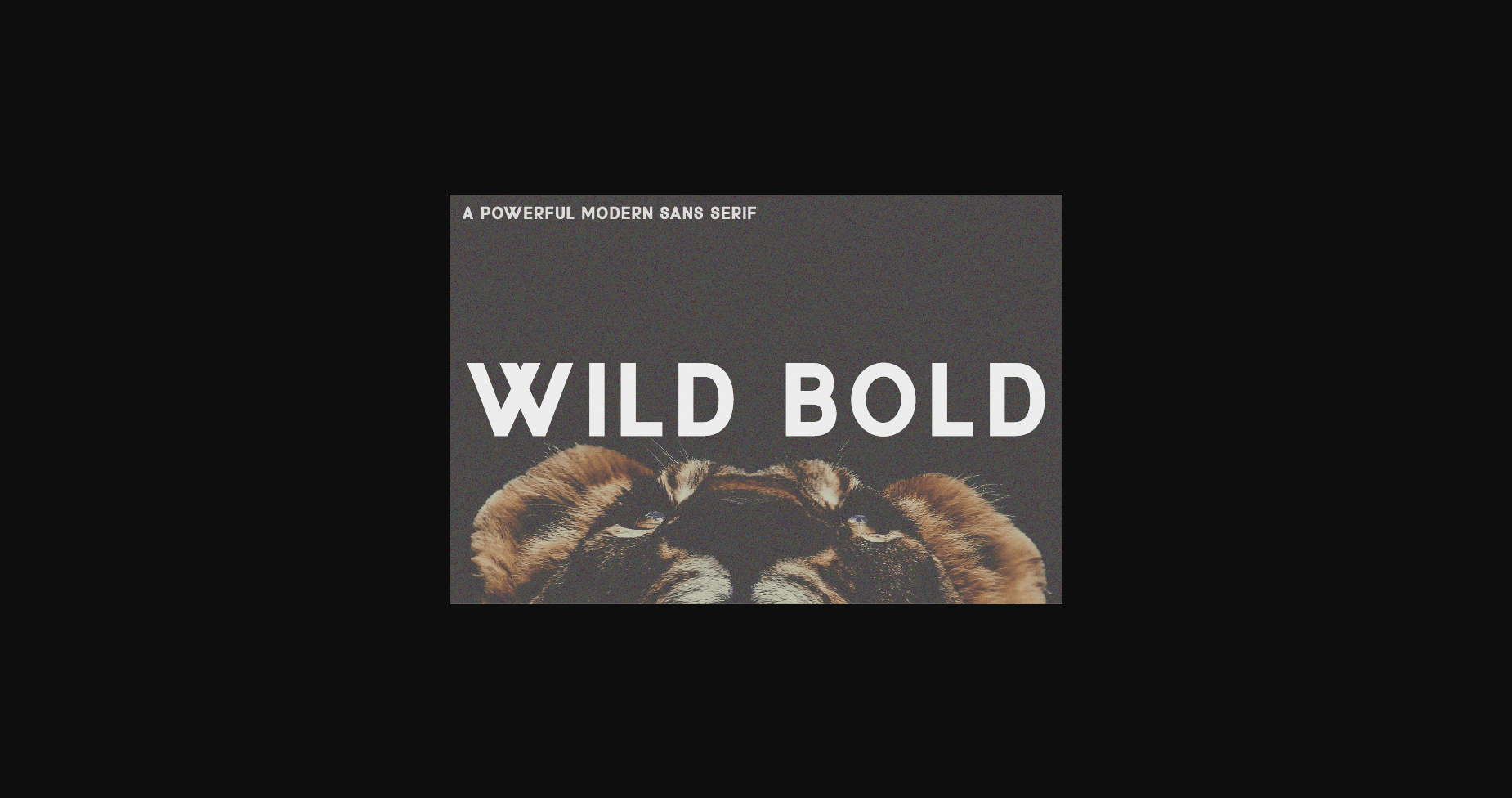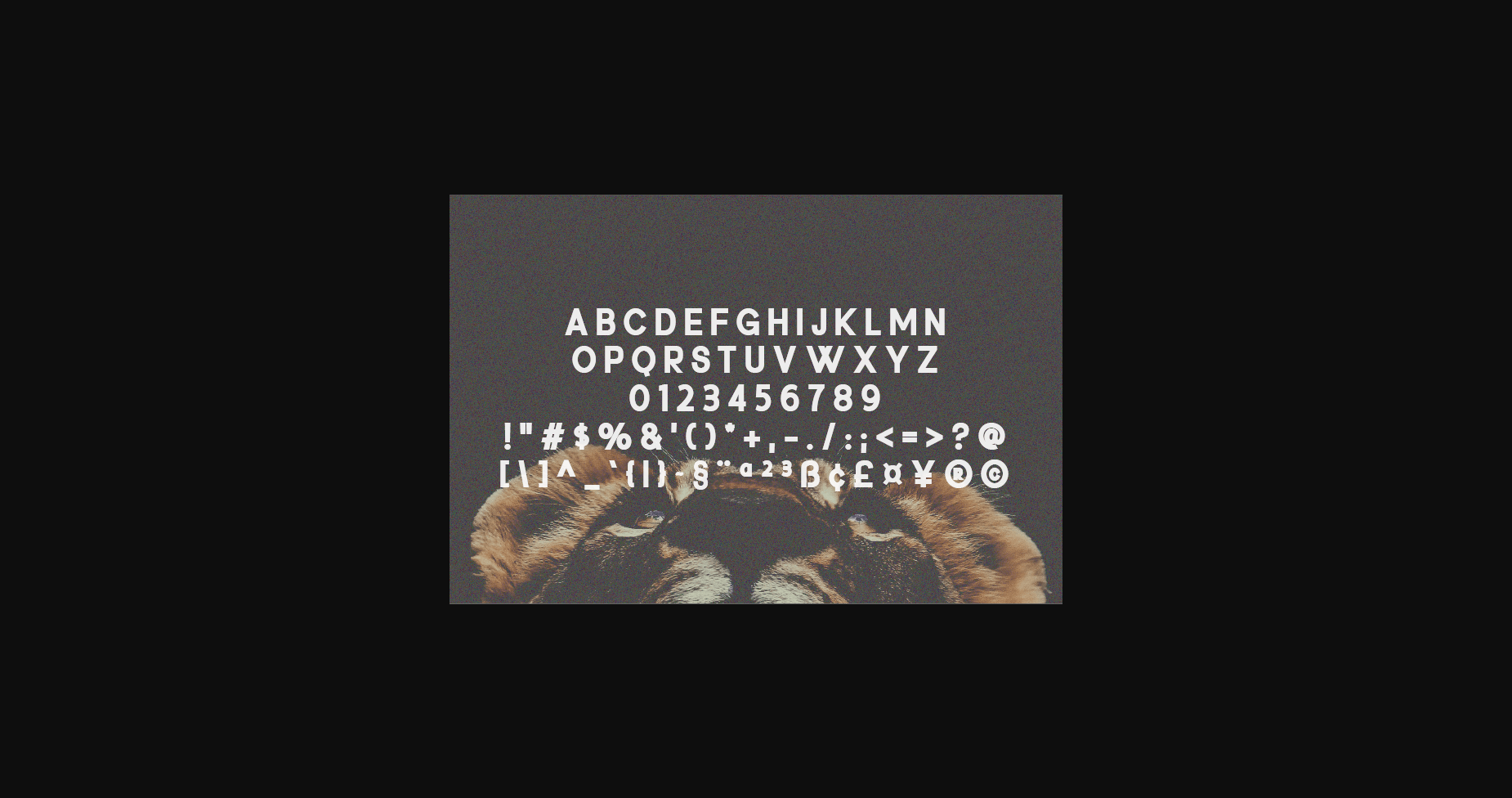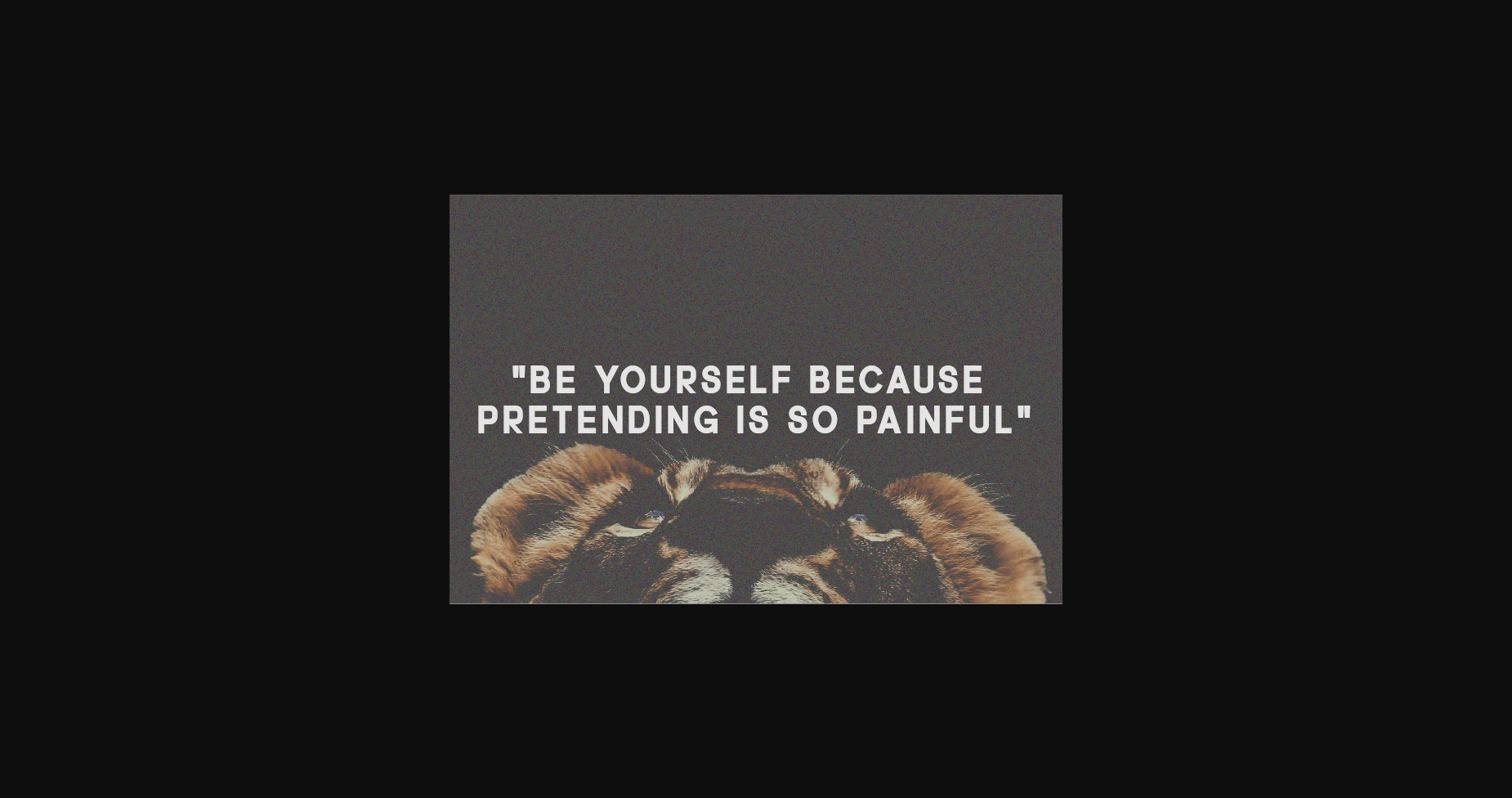
About Wild Bold Font
Wild Bold is a cool and neat sans serif font. Modern and classy, this font is suitable for a large variety of creative ideas. Add it confidently to your projects and you will love the results!